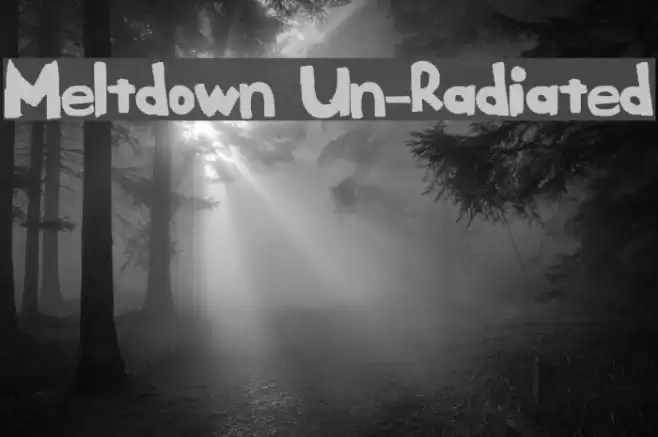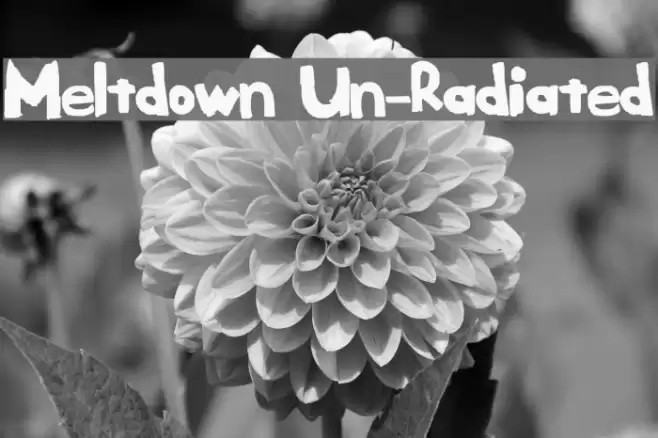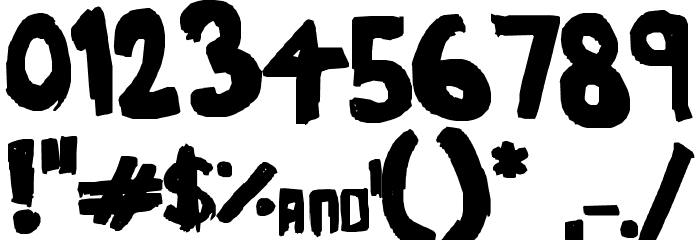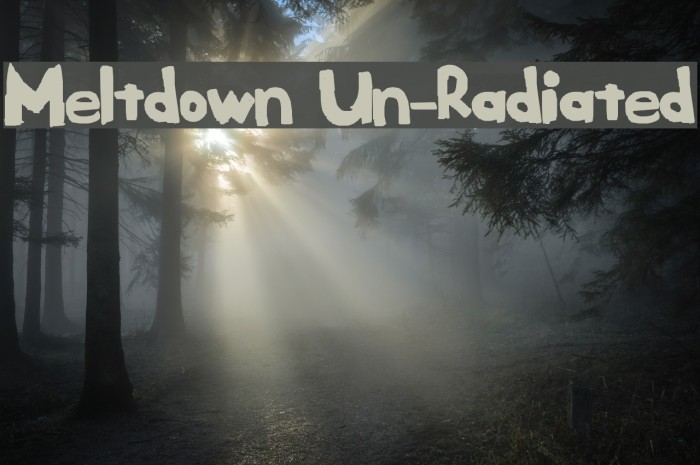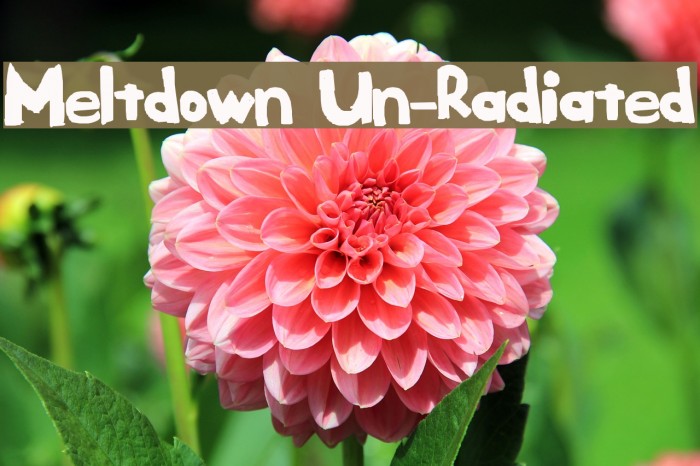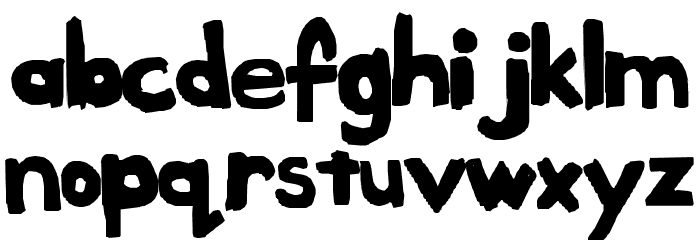
Meltdown Un-Radiated Font
Meltdown Un-Radiated Description
This font features a bold and expressive style with a hand-drawn appearance. The characters are uneven and irregular, giving it a raw and energetic feel. The uppercase and lowercase letters maintain a consistent thickness, while the numbers and special characters follow the same bold and dynamic design. The overall look is playful and slightly chaotic, making it stand out with its unique personality.
A bold, hand-drawn font with an energetic and irregular style from Uncategorized fonts.
- Proposed Projects: Ideal for projects that require a bold statement, such as posters, album covers, or branding for creative industries.